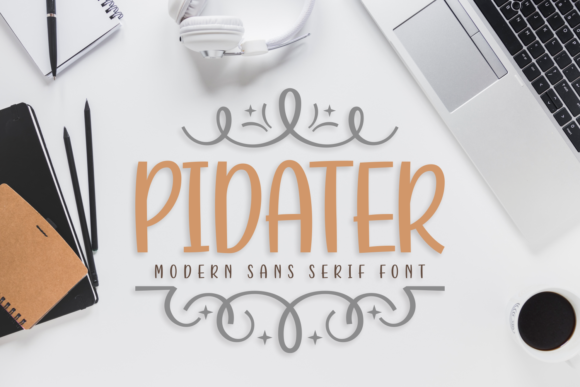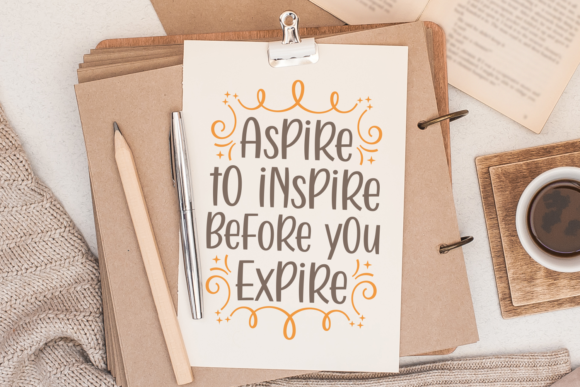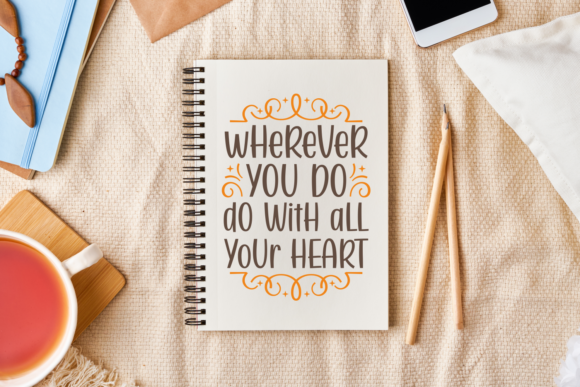
Pidater Font: A Playful Sans Serif for Cute DIY & Cricut Designs
About the Pidater Font
From logos to headlines, the Pidater Font is the perfect choice for making a lasting impression. Pidater is a friendly sans serif typeface with lots of character. Fall in love with its playful look & feel!
Pidater’s friendly, playful nature makes it ideal for headlines, branding elements such as logos and short taglines, and packaging design where a touch of whimsy is desired. It also works well in posters and short, impactful marketing materials. However, its less-than-optimal x-height makes it unsuitable for extended body text or UI elements where readability is paramount.
To complement Pidater’s playful energy, consider pairing it with a clean sans-serif like Lato for body copy or a more structured serif like Playfair Display for a sophisticated contrast. A geometric sans-serif could add a modern edge, while a delicate script font could enhance the friendly feel for specific applications.
Pidater’s overall personality is best described as cheerful and approachable, making it a strong choice for brands targeting a youthful or family-oriented audience. Its informal yet legible style lends itself to projects that need to convey approachability and fun without sacrificing clarity.
Pidater Font Example